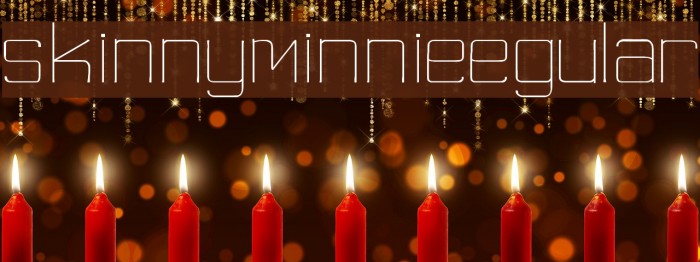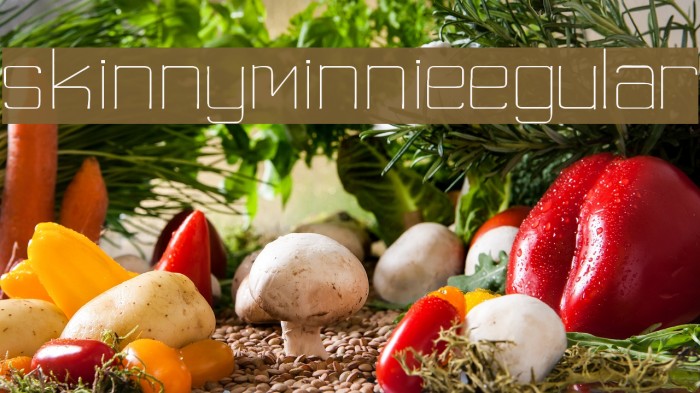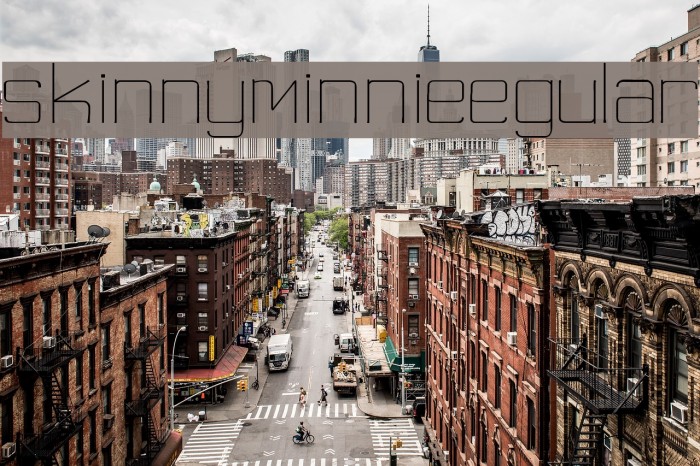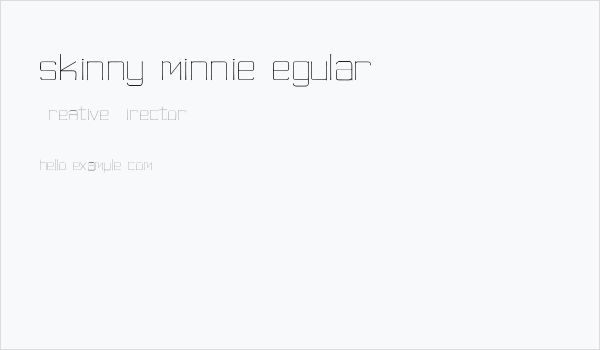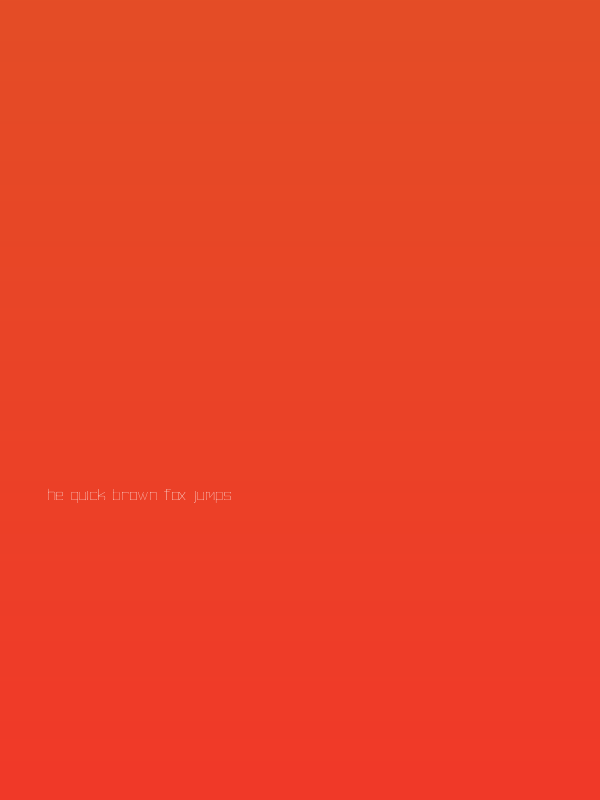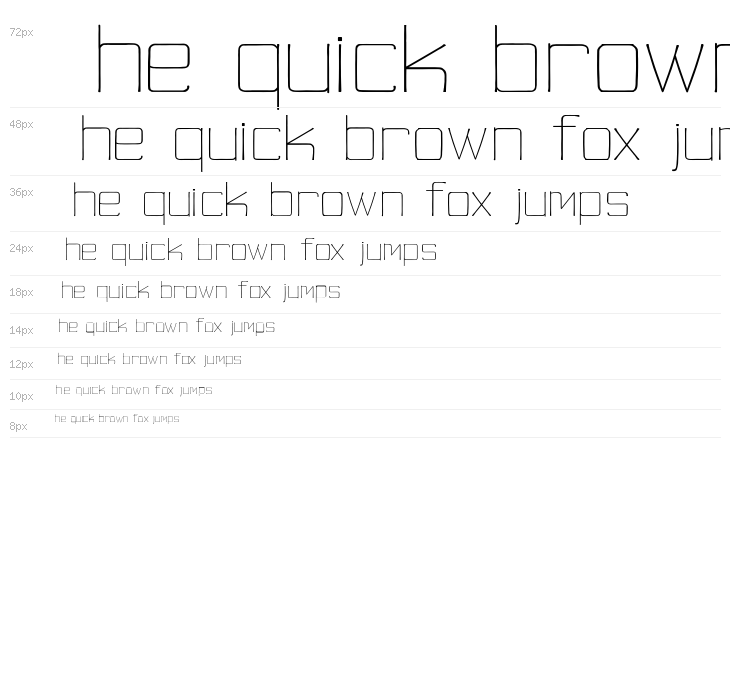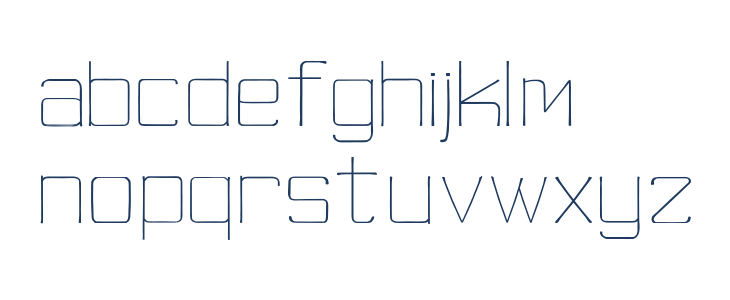
skinny minnieRegular Font
skinny minnieRegular Description
This font features a minimalist and modern design with thin, linear strokes that give it a sleek and elegant appearance. The characters are evenly spaced and maintain a consistent height, creating a harmonious flow across the text. The simplicity of the design makes it versatile for various applications, while the geometric shapes add a touch of sophistication. Its clean lines and open forms ensure excellent readability, making it suitable for both digital and print media.
| Proposed Projects | Ideal for modern branding projects, minimalist posters, digital interfaces, and editorial design. |